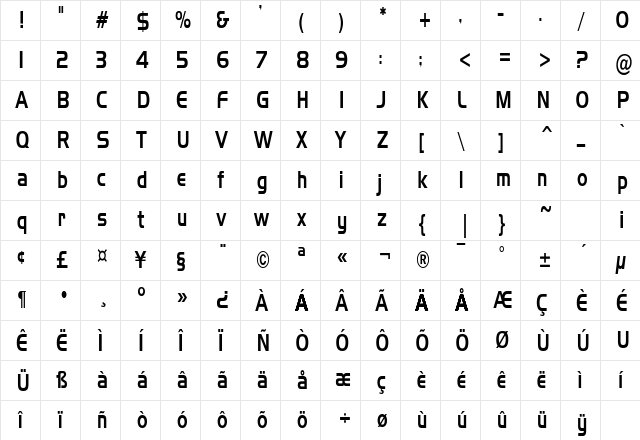
AeroCondensed Regular
Design Context for AeroCondensed Typeface
AeroCondensed is a composed and adaptable typeface that performs quietly and consistently across a wide range of design contexts. The condensed width makes it efficient for tight spaces without sacrificing legibility.